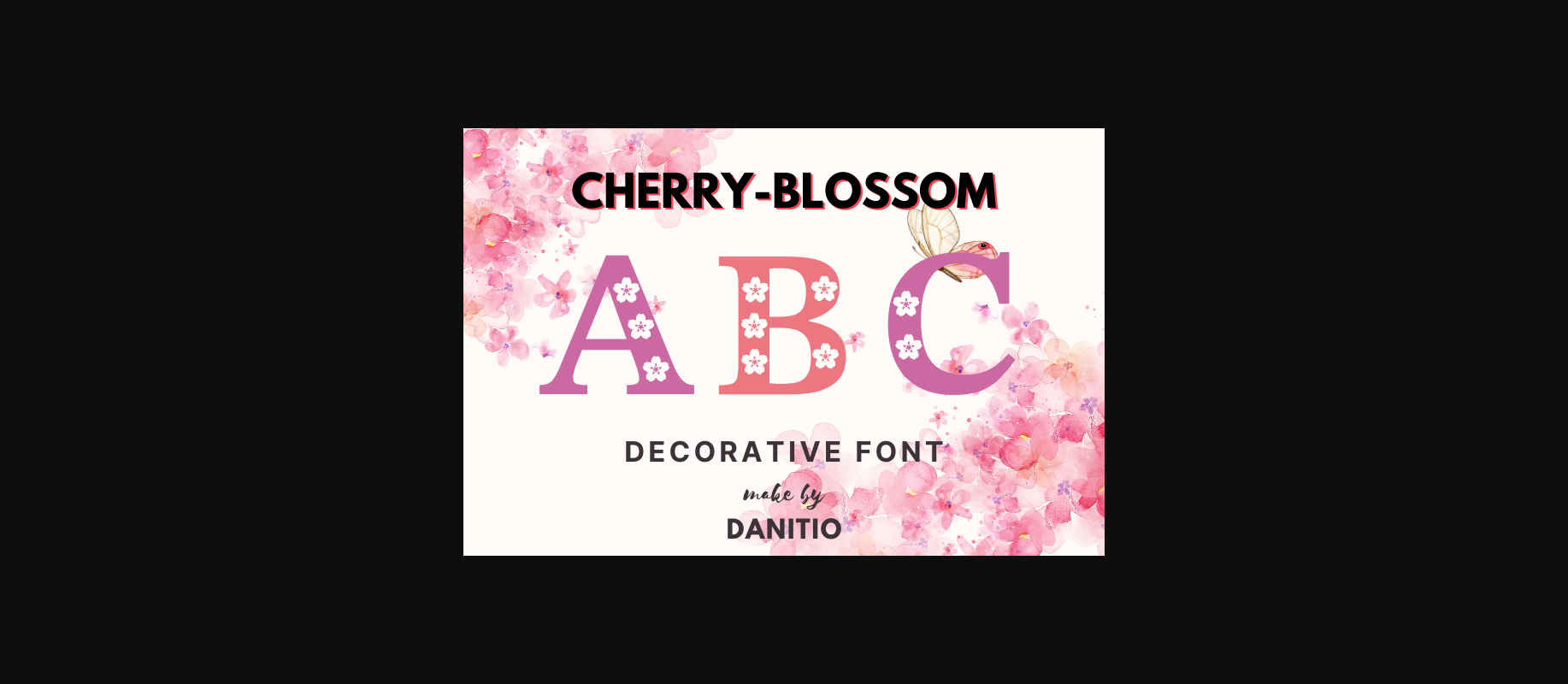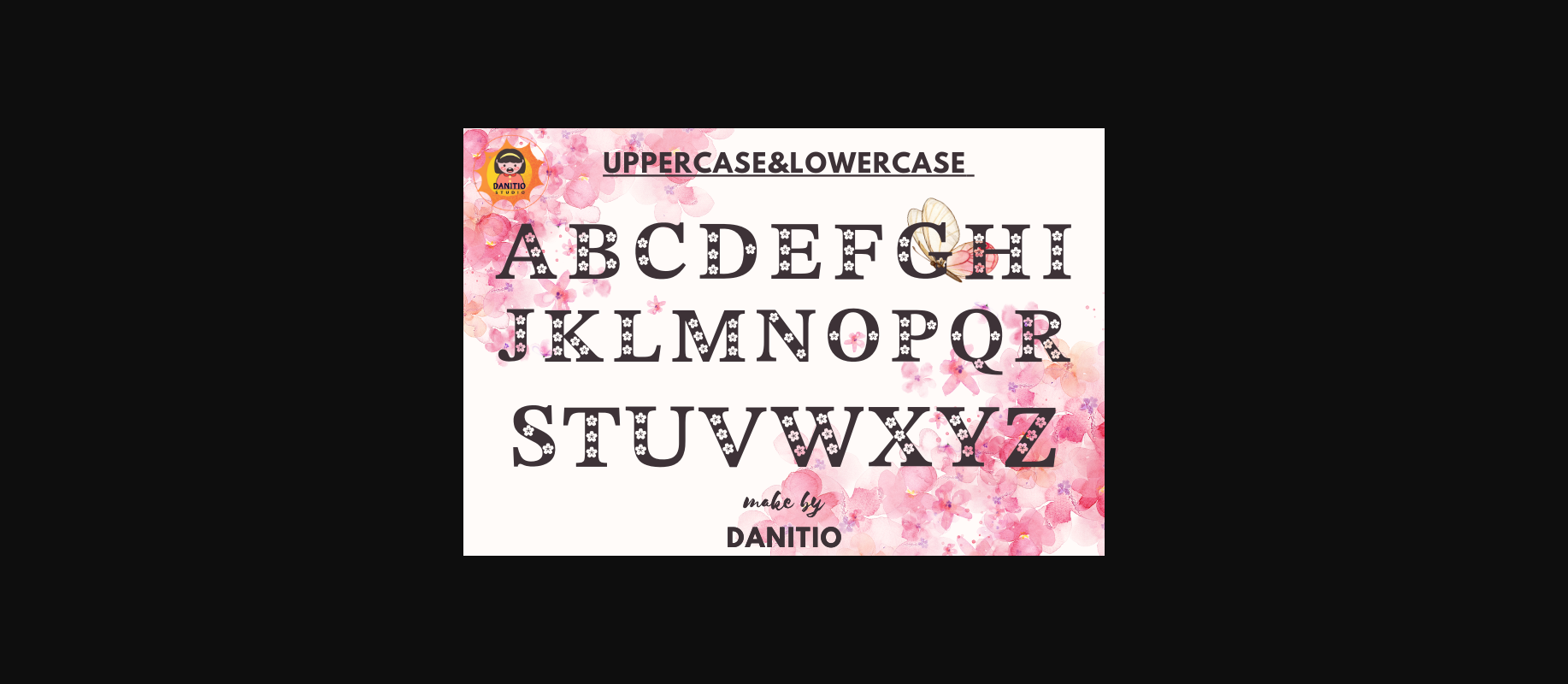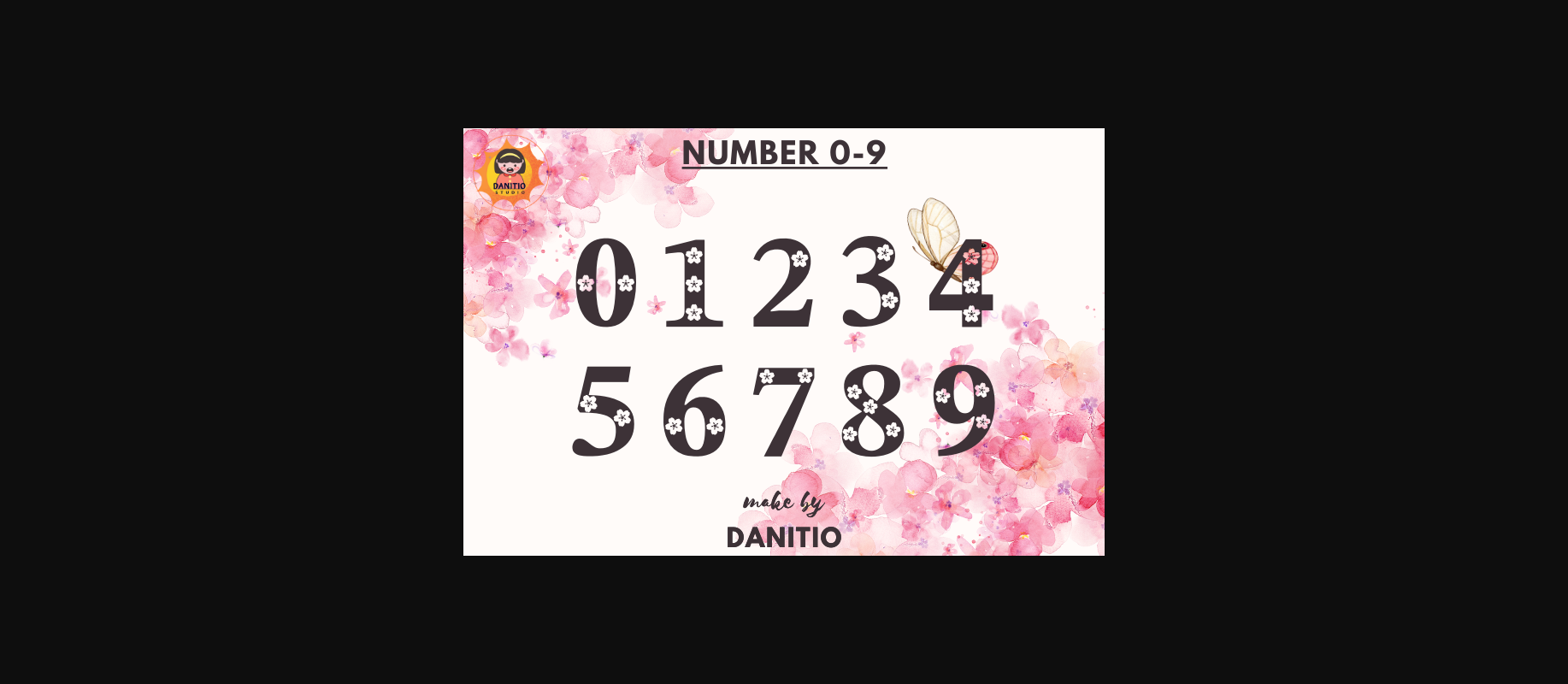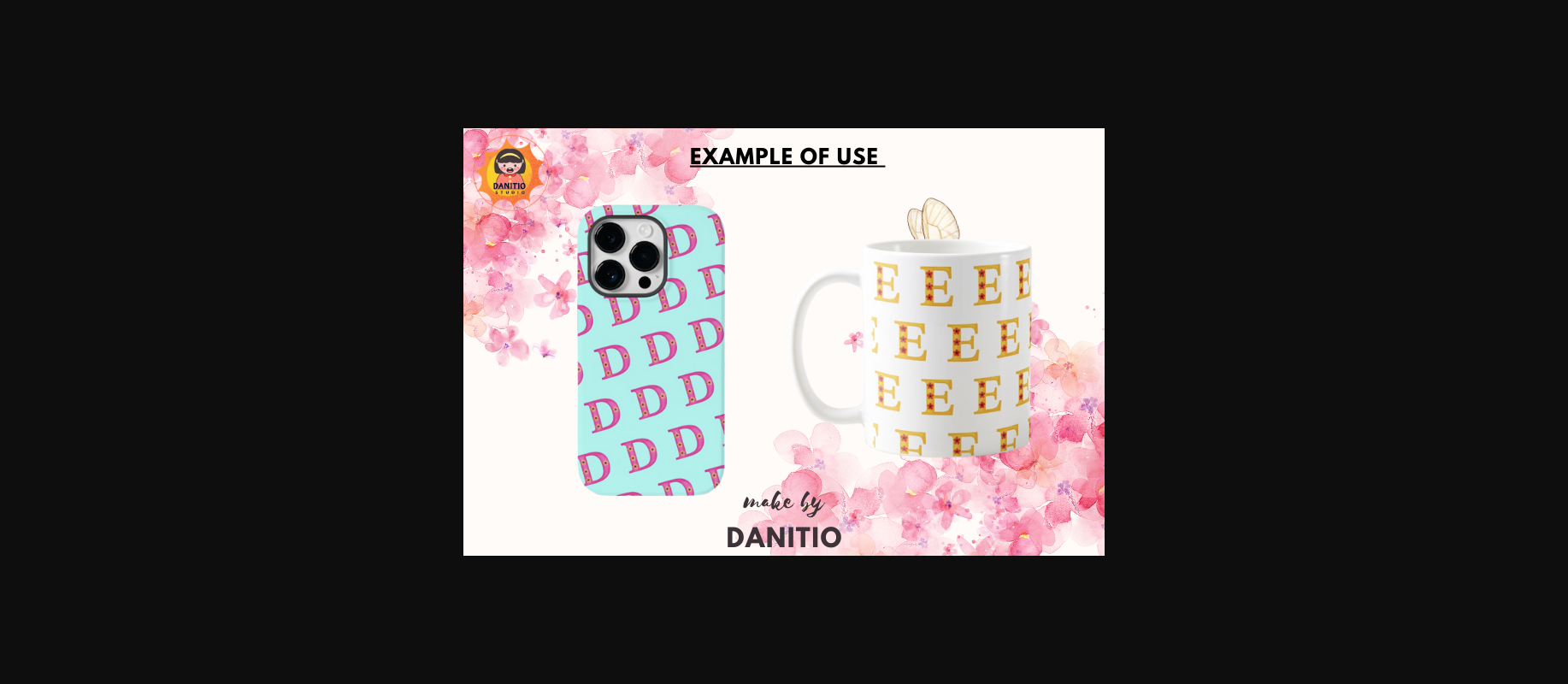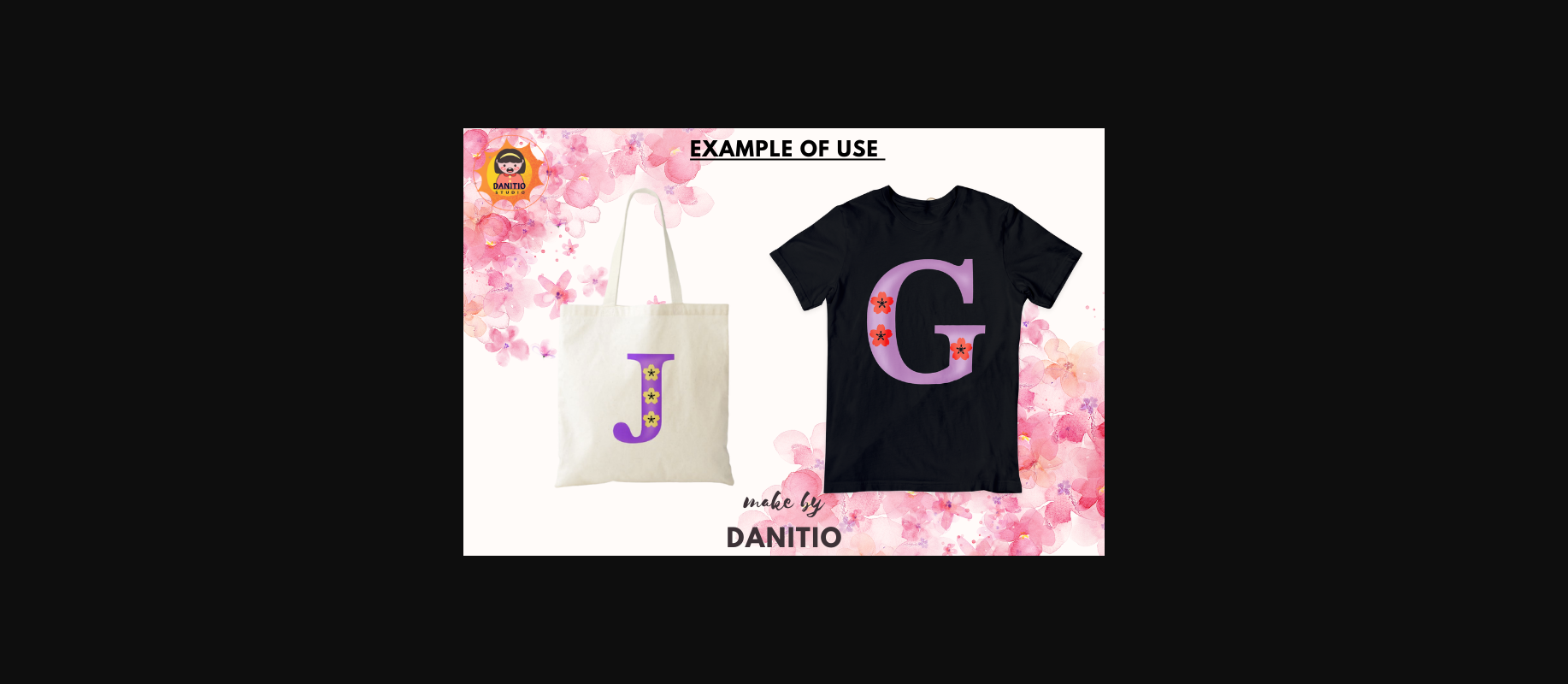
About Cherry Blossom Font
Cherry Blossom is a typeface. Decorative, the beautiful flower, known as sakura in Japanese, is the delicate and ephemeral flower of the cherry tree. They symbolize nature’s life, beauty, rejuvenation, and the arrival of spring. In Japan, cherry blossoms are celebrated with hanami. or gathering together to admire flowers where people gather to admire the beauty of cherry blossoms.